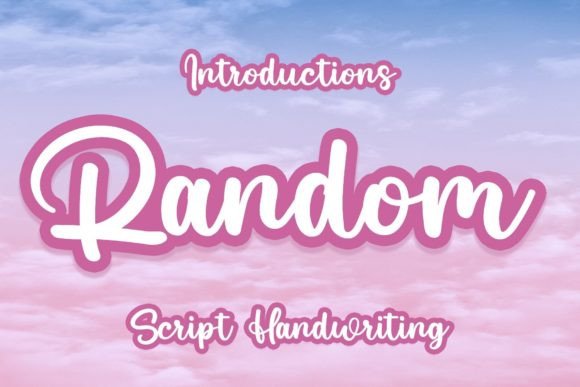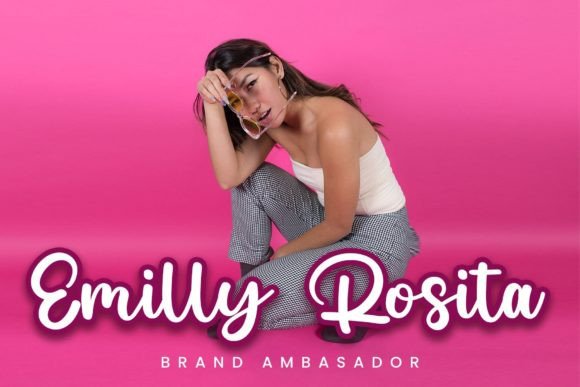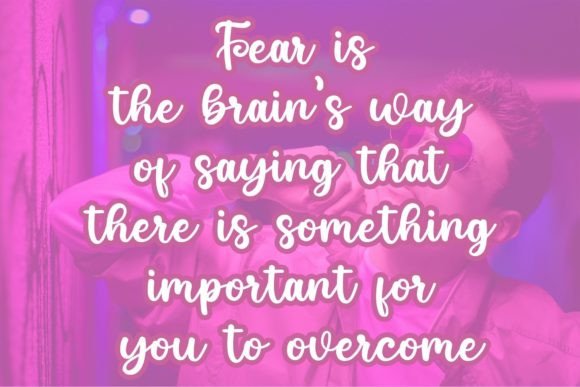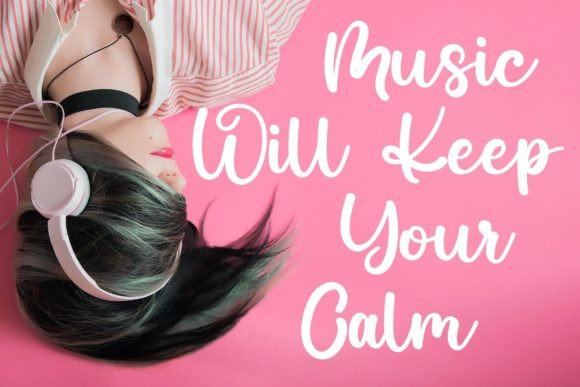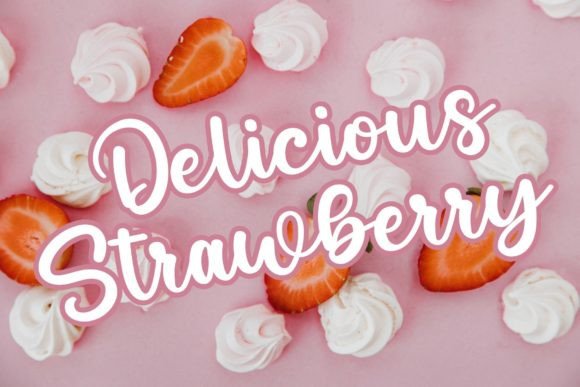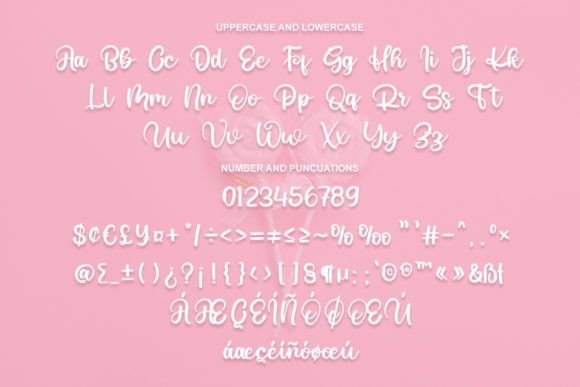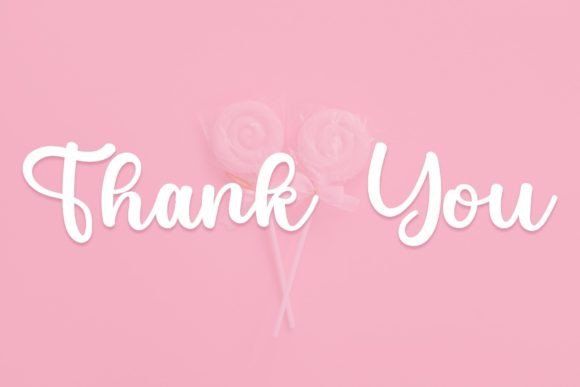
Random Font
“Random” is described as a stylish and dainty script font, suitable for a variety of projects including logos, branding, labels, photography, watermark, special events, and more. The font is noted to have a beautiful script taste, suggesting a refined and expressive aesthetic.
The term “stylish” implies that “Random” has a contemporary and fashionable design, making it suitable for modern and visually appealing projects. The use of “dainty” further emphasizes a delicate and elegant quality, suggesting that the font carries a sense of sophistication.
The versatility of “Random” is highlighted by its applicability to diverse projects, including branding, labels, and special events. Fonts that can seamlessly integrate into different design contexts are often valued for their flexibility.
The mention of PUA encoding is notable, as it indicates that users can easily access all the glyphs and swashes. PUA (Private Use Area) encoding allows for convenient access to special characters and decorative elements, providing users with the ability to customize and enhance their designs.
In summary, “Random” is presented as a stylish and dainty script font with a beautiful script taste. Its versatility, combined with PUA encoding, makes it a potentially valuable tool for designers looking to add an elegant and expressive touch to a range of creative projects.